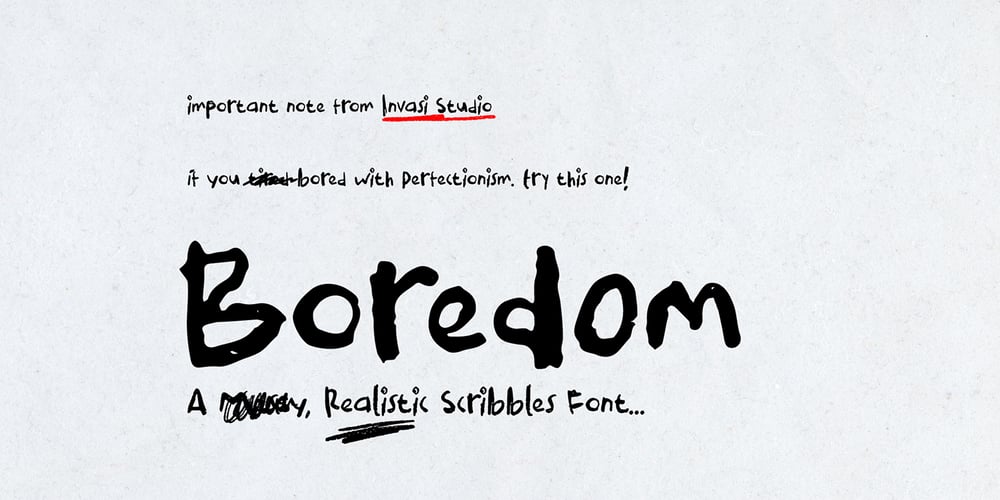
Boredom Font Family was designed by Gha Arizal and published by Invasi Studio. Boredom contains 1 styles and family package options. You want to add more raw for your design. Introduction our new Handwritten Font. A Boredom Font with realistic scribbles pen styles. This set can make your design more realistic.Includes 2 set alternate variations for each A-Z letter (both uppercase and lowercase). So you can create a combination of whatever you want!